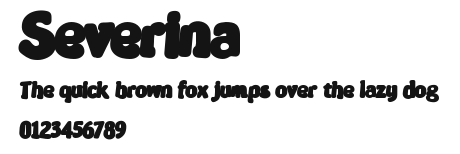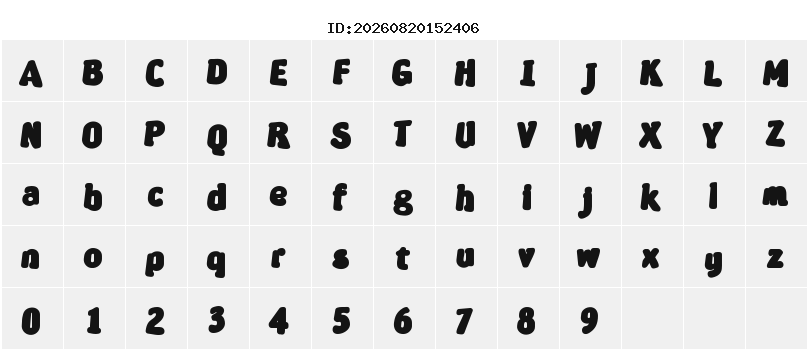
Severina Preview
• Font Name: Severina
• Full Font Name: Severina
• Designer: Apostrophe (') & Link Olsson
About Severina.ttf
Severina.ttf is a modern, elegant sans-serif font designed for ultimate readability and visual harmony. Perfect for branding, headlines, web design, and print materials.